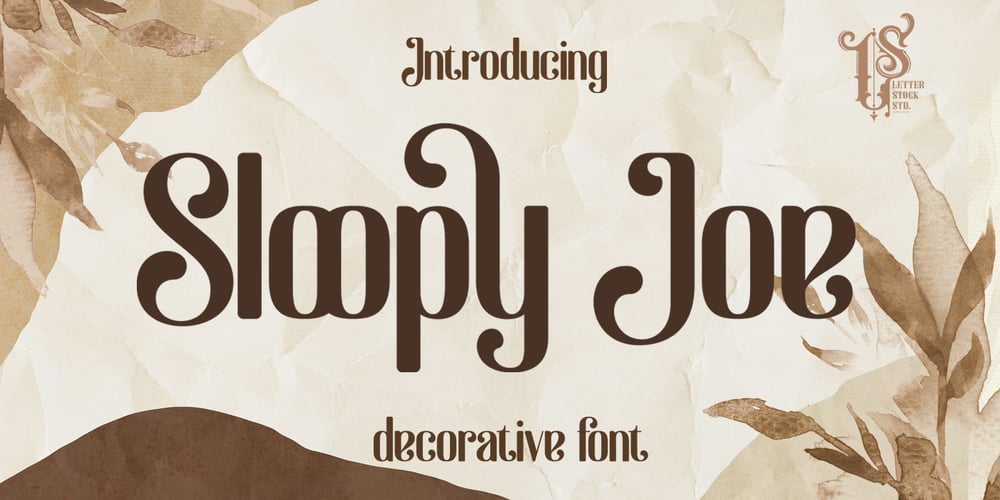
Sloopy Joe Font Family was designed by Studio LetterStock and published by LetterStock. Sloopy Joe contains 1 styles and family package options. Sloopy Joe font is a decorative font that was inspired by logo design from my son toy’s cardbox, and was crafted by hand to add a natural handmade feeling and i make it clean with pentool.If you looking for a new style decorative font for your title or even branding and logotype, this font is a great choice for that purpose.Opentype featuresSloopy Joe font is very good looking in logotype, labels, decorative lettering, playful design, product packaging, invitation titled, advertising and others.This decorative font works with folowing languages:Afrikaans, Albanian, Asu, Basque, Bemba, Bena, Chiga, Cornish, Danish, English, Estonian, Filipino, Finnish, French, Friulian, Galician, Gusii, Indonesian, Irish, Italian, Kabuverdianu, Kalenjin, Kinyarwanda, Low German, Luo, Luxembourgish, Luyia, Machame, Makhuwa-Meetto, Makonde, Malagasy, Malay, Manx, Morisyen, North Ndebele, Norwegian Bokmål, Norwegian Nynorsk, Nyankole, Oromo, Portuguese, Romansh, Rombo, Rundi, Rwa, Samburu, Sango, Sangu, Scottish Gaelic, Sena, Shambala, Shona, Soga, Somali, Spanish, Swahili, Swedish, Swiss German, Taita, Teso, Vunjo, Zulu.Thank you for using this font.LS